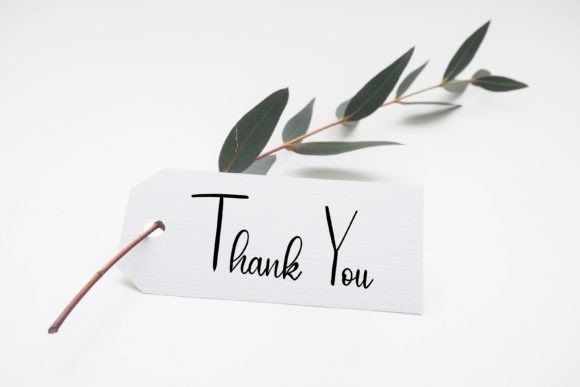
Explore the Minimalist Font
The Minimalist Font offers a versatile and clean design, perfect for various creative projects. Its simplicity makes it ideal for tasks like greeting cards and headlines, where clarity is crucial. Designers appreciate its elegant touch and balanced style, which suits both casual and professional settings. This font has become a go-to choice for those seeking a minimalist aesthetic without sacrificing readability.
Why Choose Minimalist Fonts?
- Simple Yet Elegant: This font features a straightforward design that fits diverse contexts while maintaining elegance. It manages to convey sophistication without overwhelming the viewer.
- Highly Adaptable: Whether crafting a minimalistic greeting card or a bold headline, it easily accommodates different applications. Its adaptability makes it suitable for both digital and print media.
Practical Applications
- Versatile Themes: The font supports various design styles, ensuring clarity and adding unique character. It can seamlessly integrate into modern or classic themes.
- Typography Solutions: It provides a solid foundation for modern and traditional looks, catering to different creative needs. Its clean lines and balanced proportions make it an excellent choice for branding.
- Perfect for Branding: Its clean appearance makes it an excellent choice for branding and promotional materials. Businesses often use this font to create a professional image.
Tips for Effective Use
When using the Minimalist Font, consider pairing it with complementary fonts to enhance your design. For example, combining this font with a bold sans-serif can create a striking contrast. Additionally, maintain consistent spacing and size to ensure readability and aesthetic appeal. These practices help in achieving a cohesive look across different platforms.
Diverse Applications in Modern Design
The adaptability of the Minimalist Font extends beyond traditional uses. Modern digital designs benefit greatly from its clarity and subtlety. Whether in websites, brochures, or mobile interfaces, this font meets contemporary design demands effectively. Its ability to adapt to various screen sizes without losing its charm makes it invaluable in today’s digital age.
The Power of Simplicity
This adaptable handwritten style suits countless design purposes. Its simplicity, combined with versatility, makes it perfect for conveying messages clearly. Designers trust this font to ensure their text stands out, guaranteeing that the message comes across effectively. As design trends evolve, the Minimalist Font remains relevant due to its timeless appeal.
This font is also suitable for various design purposes, adapting easily to styles and themes. Whether you’re creating digital graphics or print materials, the Minimalist Font enhances visual appeal while retaining legibility. Designers use this font for advertisements, posters, and social media graphics. Its versatility allows for creative freedom, letting designers experiment with layouts and designs while maintaining clarity. Moreover, it complements both digital and print media efficiently, making it a preferred choice for widespread applications. As design needs evolve, the Minimalist Font stands as a timeless option, balancing style with functionality flawlessly.